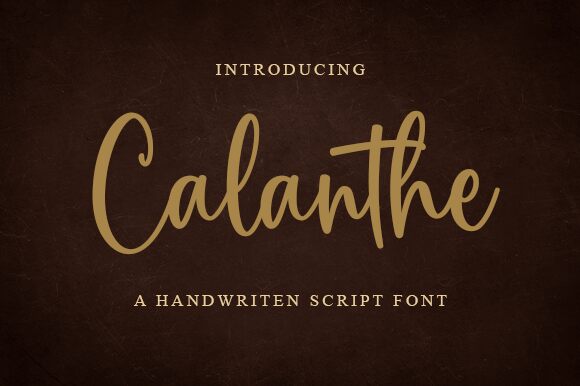
Calanthe
Calanthe, designed by Graphix Line Studio, embodies elegance with its semi-light weight and flowing handwritten style. This font's delicate balance of beauty and legibility makes it an exceptional choice for designers looking to infuse their projects with a touch of personal flair.
With well-crafted characters that seem to dance across the page, Calanthe is versatile enough for invitations, branding, advertising, and even editorial design. Its unique charm is particularly suited for creative endeavors that demand a sophisticated yet intimate feel.
Embrace the artistry of Calanthe to elevate your designs with its distinctively graceful appeal.